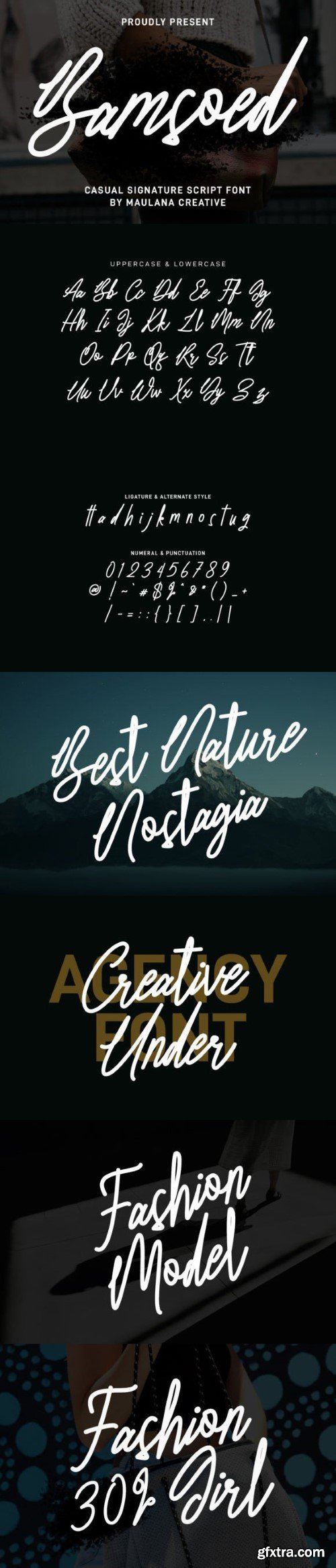
Bamsoed Font
Give your designs an authentic brush-handcrafted feel. “Bamsoed Signature Script Font” is perfectly suited to signatures, stationery, logos, typography quotes, website headers, branding, and more.